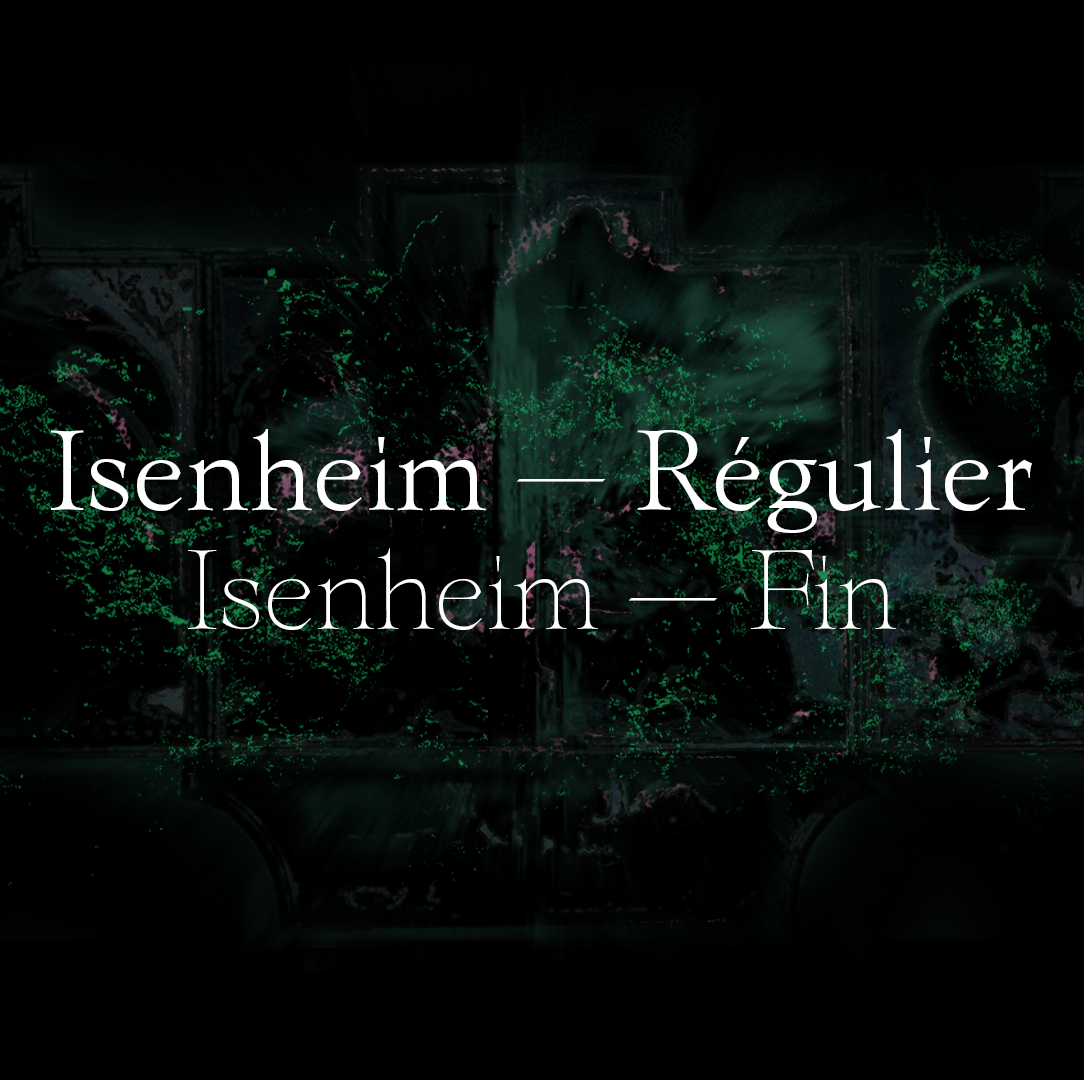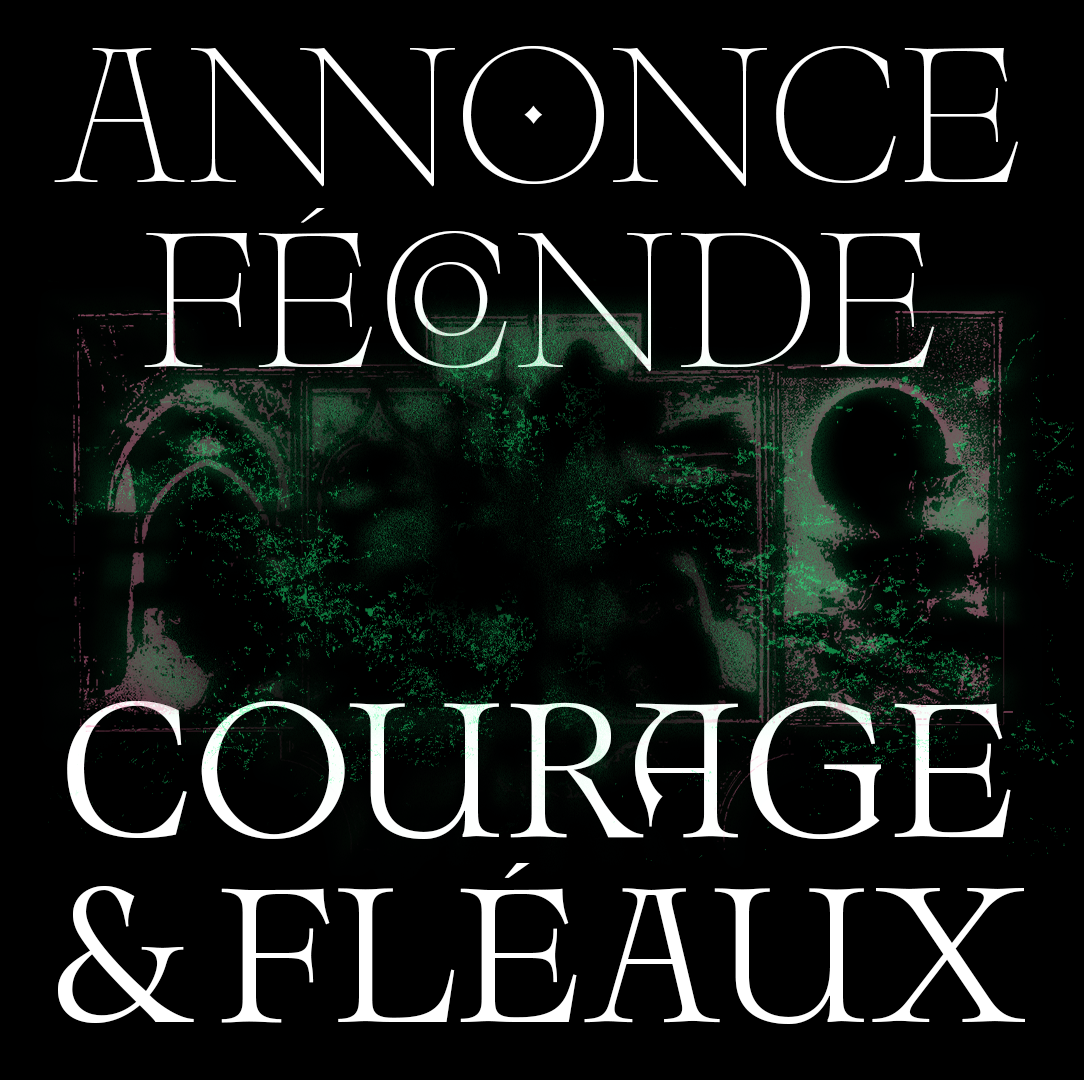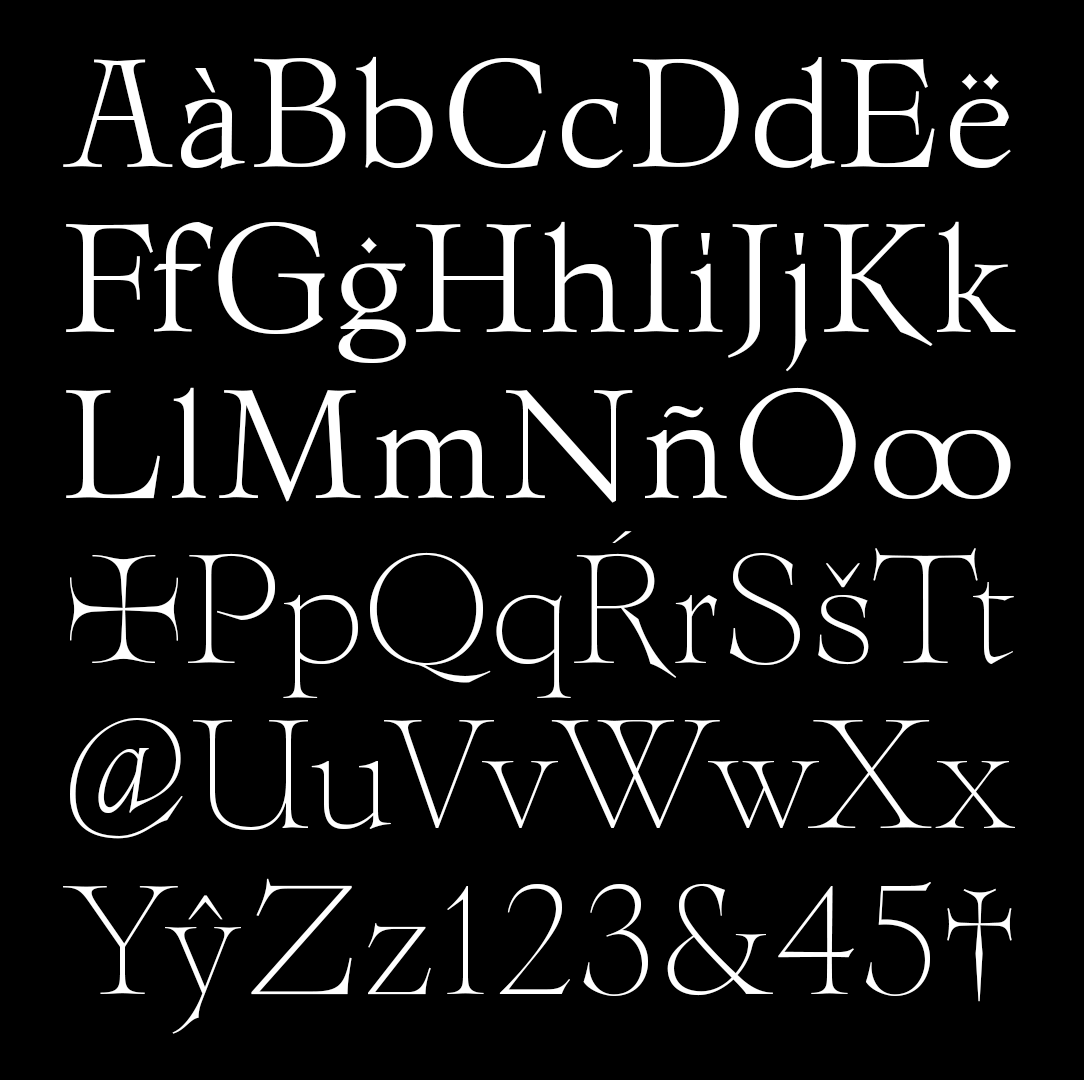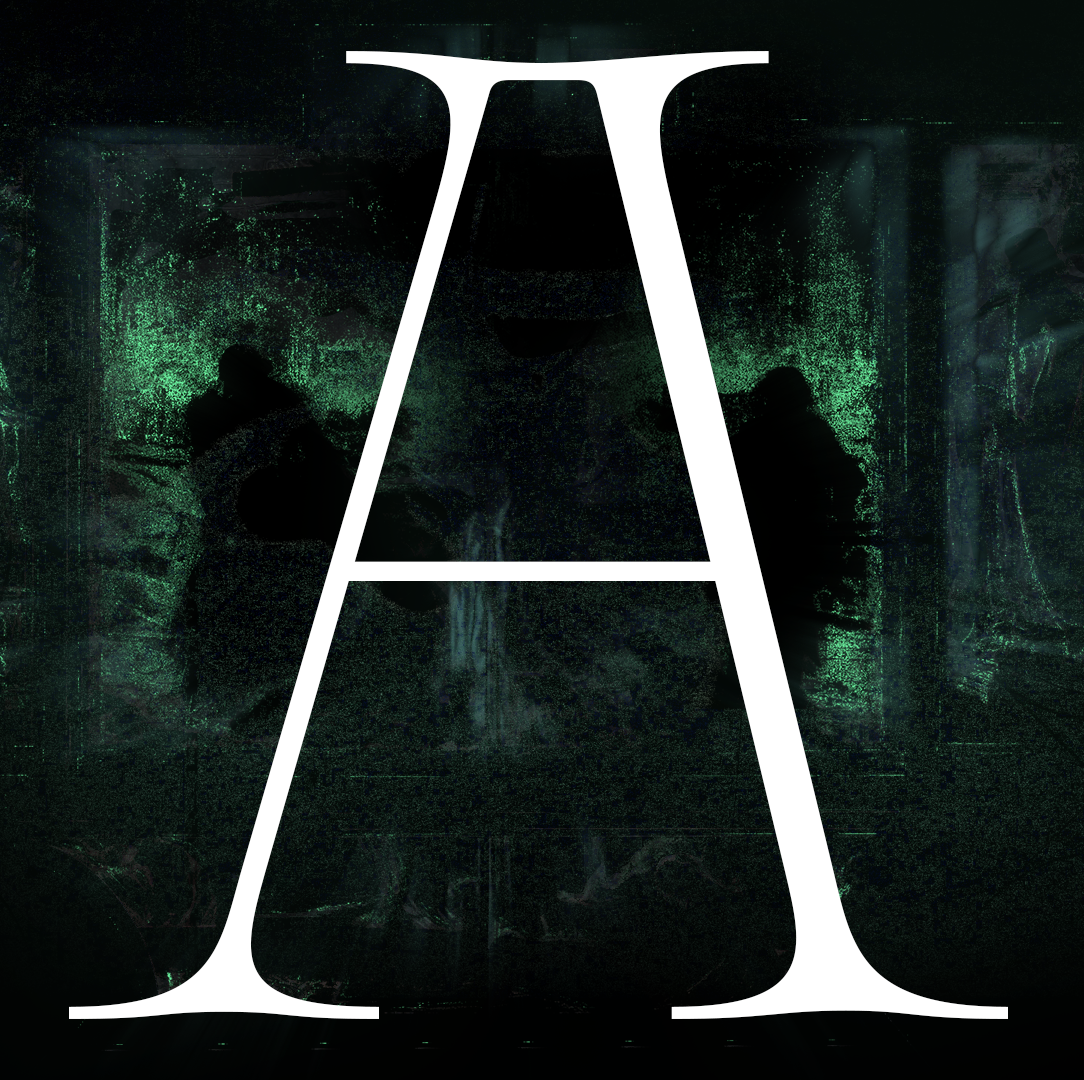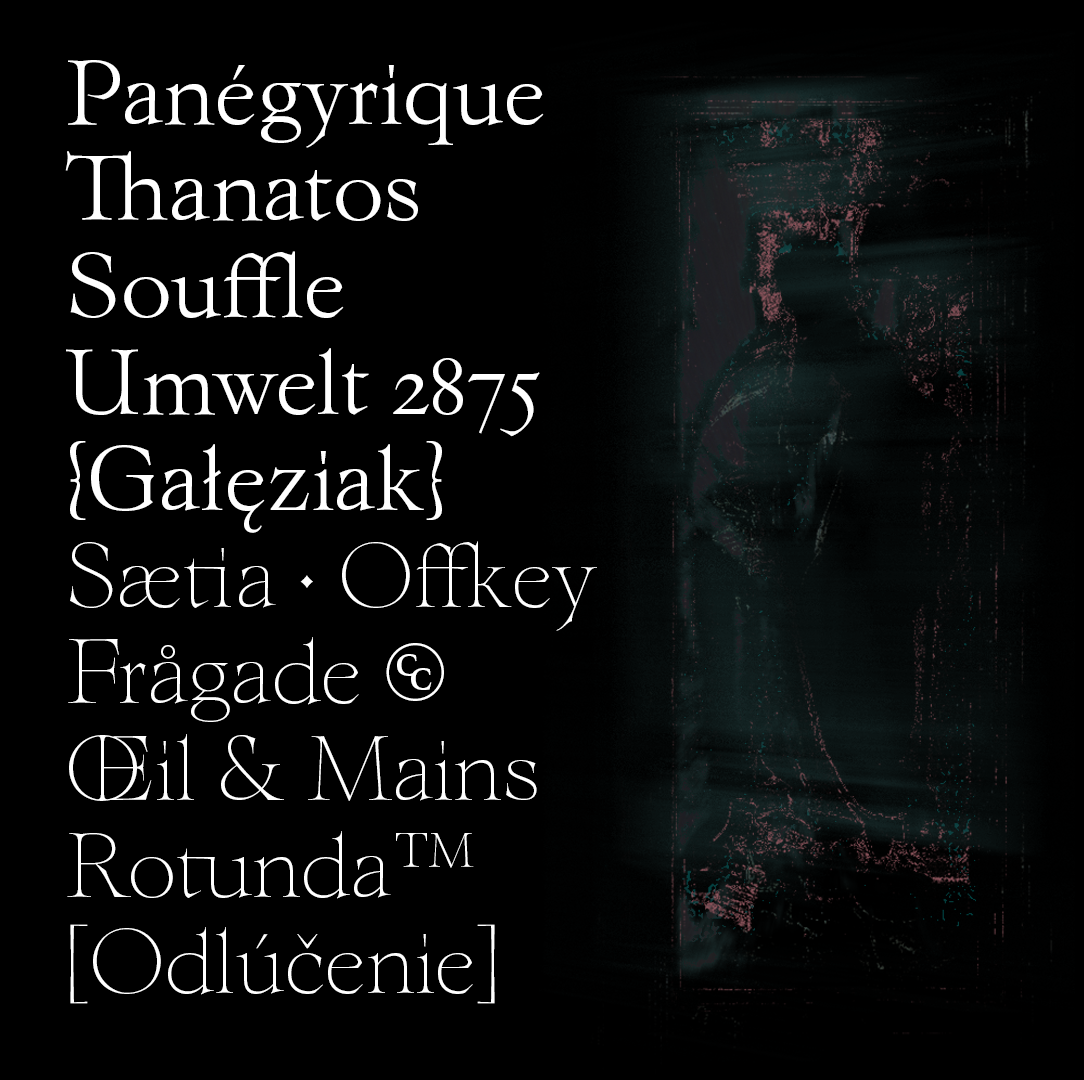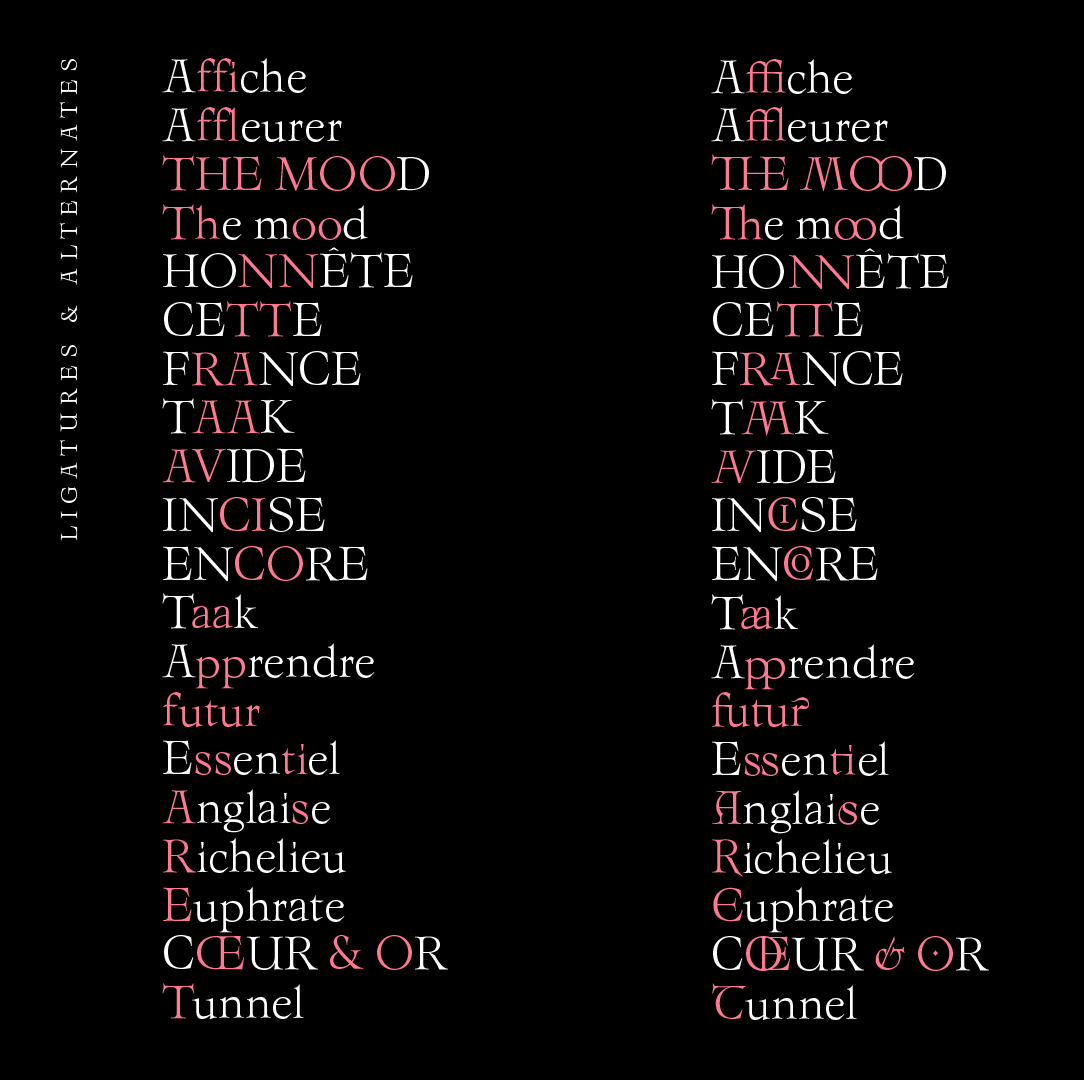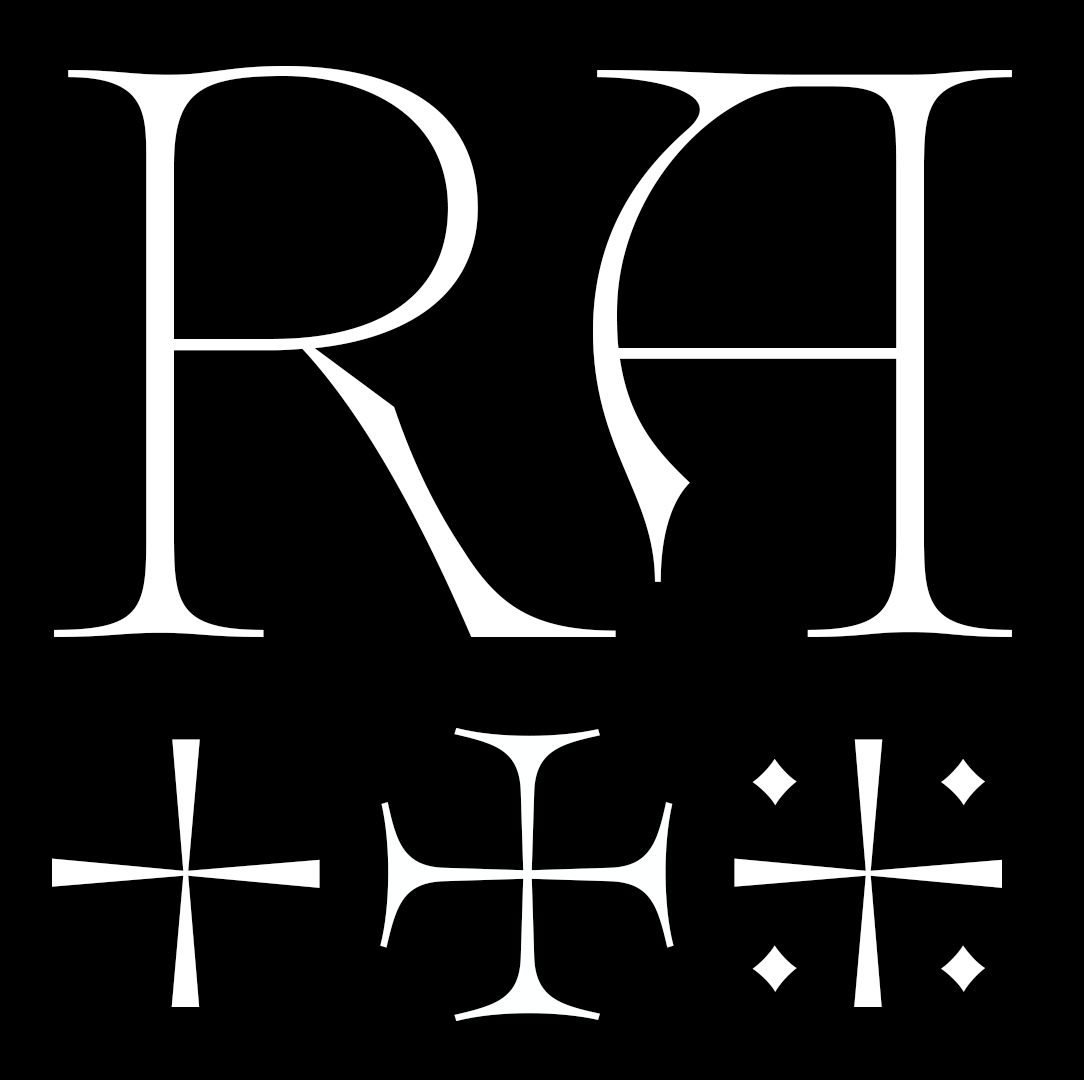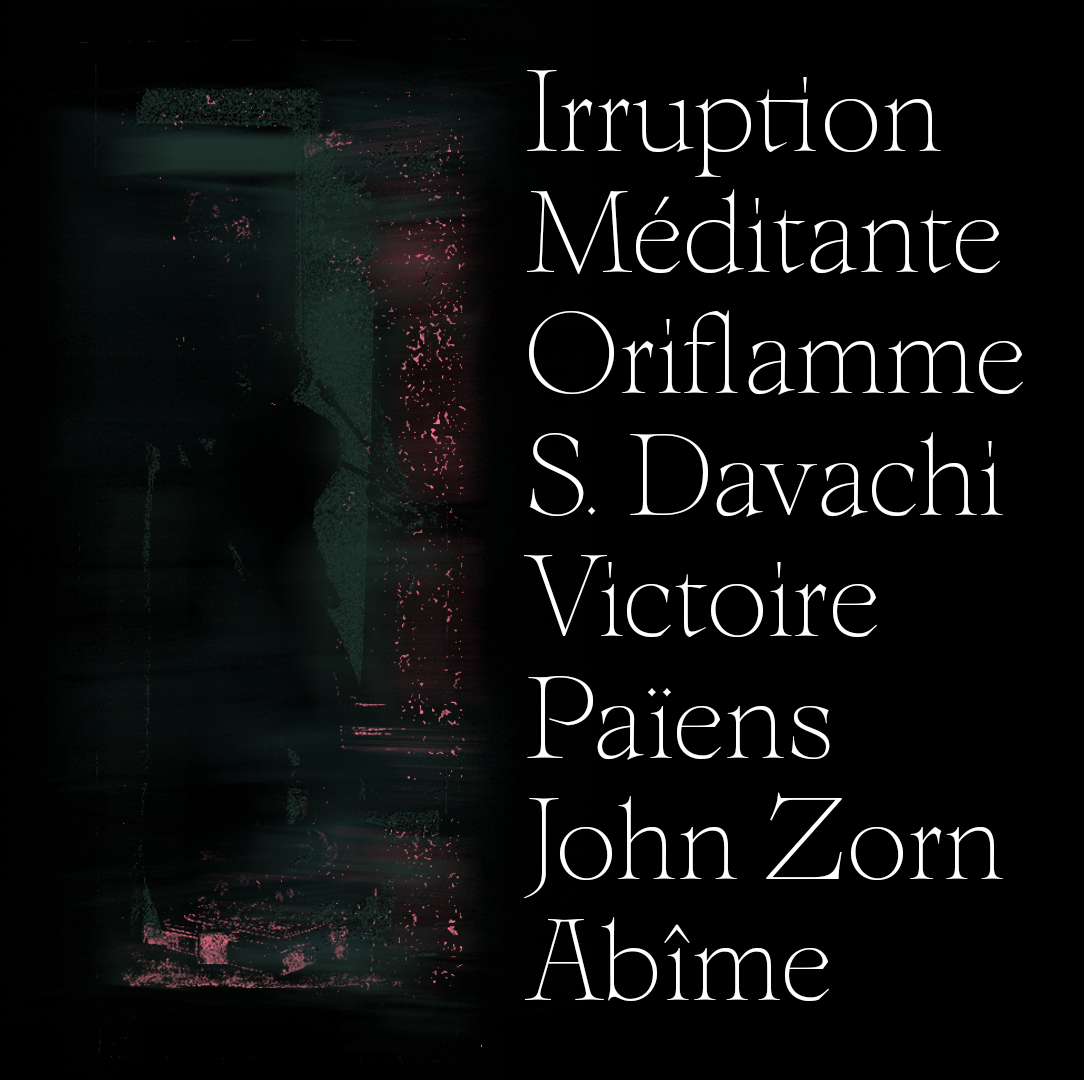
Isenheim
Isenheim is a serif family with medieval influences which includes many alternates and ligatures — including some MUFI rarities and lombardic influences.
Isenheim Régulier was originally conceived as a revival from a type found in a small book on the Isenheim Altar Piece by Matthias Grünewald (published by Payot Lausanne in the Orbis Pictus collection sometime in the second half of the XXth century). It became a stand-alone family very far from the original, as if the altar piece slowly merged with the type.